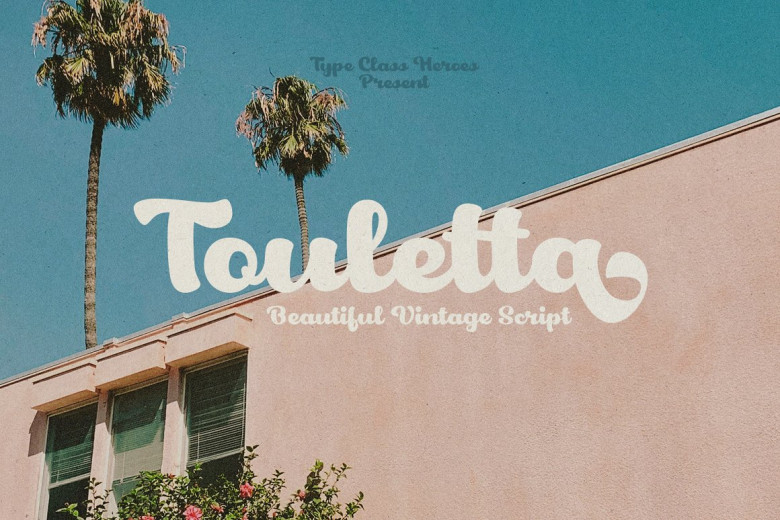
Touletta Font
Touletta is an impressive vintage retro script font inspired by 60’s styles, which combines sophistication with retro tones for a vintage aesthetic. Play around and combine different letters together for the ideal rhythm for reading.
Touletta Retro Script Font